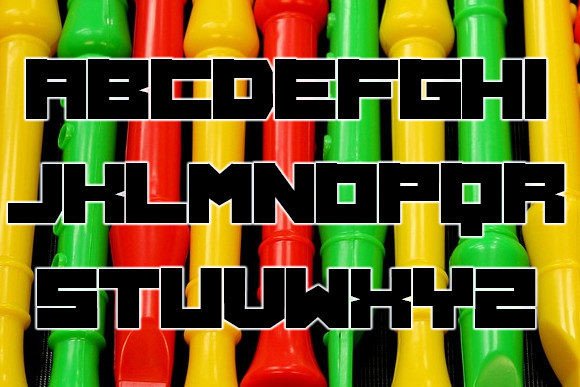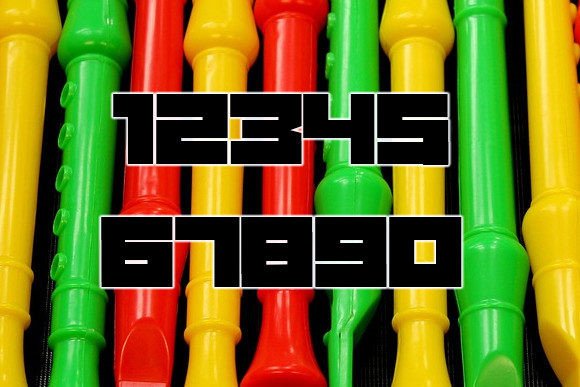
Introducing Frula Font: The Bold Display Font for Maximum Visibility
Are you tired of using the same old fonts for your designs? Do you want to make a statement and grab the attention of your audience? Look no further than Frula Font, a bold display font designed to provide excellent visibility and make your designs pop!
What is Frula Font?
Frula Font is a carefully crafted bold display font that is perfect for use on posters, flyers, and a wide range of other design materials. Its unique and striking design makes it ideal for designers and crafters who want to add a touch of personality to their work.
Key Features of Frula Font
- Bold and Eye-Catching: Frula Font is designed to be bold and attention-grabbing, making it perfect for headlines, titles, and other prominent text elements.
- Excellent Visibility: The font’s clear and clean design ensures that it remains legible even at large sizes, making it perfect for posters, billboards, and other large-format designs.
- Versatile: Frula Font can be used on a wide range of design materials, from posters and flyers to business cards and social media graphics.
- Easy to Read: Despite its bold design, Frula Font is easy to read and understand, making it perfect for use in a variety of contexts.
Design Ideas Using Frula Font
Frula Font is a versatile font that can be used in a wide range of design contexts. Here are a few ideas to get you started:
- Posters: Use Frula Font to create eye-catching posters for events, promotions, or products.
- Flyers: Add a touch of personality to your flyers with Frula Font, making them stand out from the crowd.
- Social Media Graphics: Use Frula Font to create bold and attention-grabbing social media graphics that drive engagement.
- Logos: Consider using Frula Font as a basis for your logo design, making it bold and memorable.
Tips for Getting the Most Out of Frula Font
To get the most out of Frula Font, here are a few tips to keep in mind:
- Use it sparingly: Frula Font is bold and attention-grabbing, so use it sparingly to avoid overwhelming your design.
- Experiment with colors: Try out different colors and combinations to find the one that works best for your design.
- Pair it with other fonts: Consider pairing Frula Font with other fonts to create visual interest and add depth to your design.